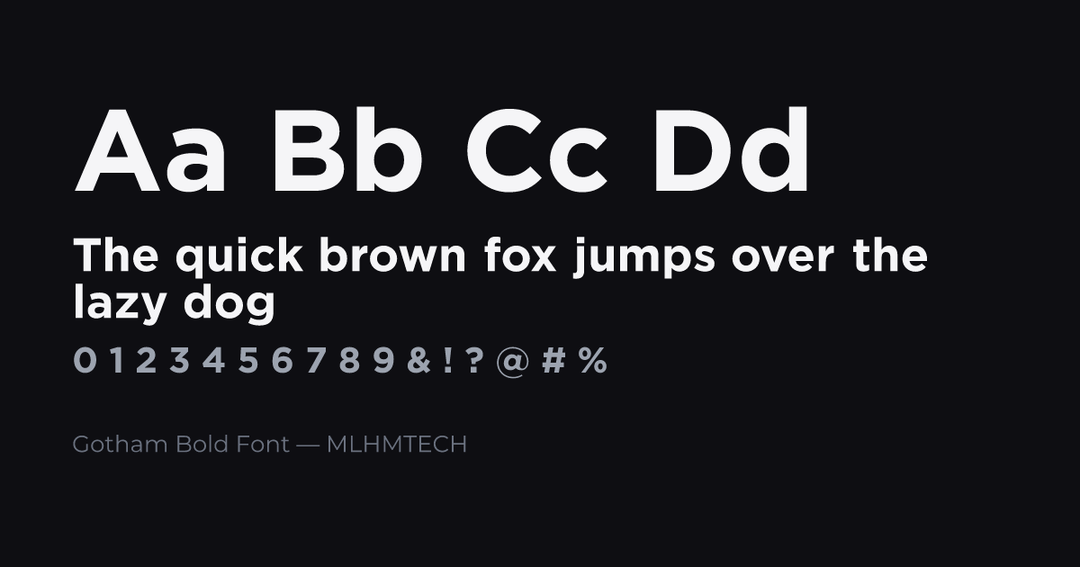
Gotham Bold Font
Gotham Bold is a clean, modern sans-serif font ideal for titles, logos, and impactful text in video and design projects.
Gotham Bold is a widely recognized geometric sans-serif typeface known for its clean, modern appearance. Its strong, even strokes make it perfect for headlines, titles, logos, and any text that needs to stand out.
With its versatile style, Gotham Bold works well in both print and digital media. Whether you're creating a cinematic title sequence or a sleek logo, this font delivers clarity and impact.